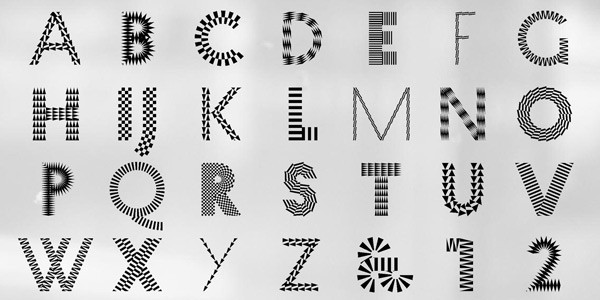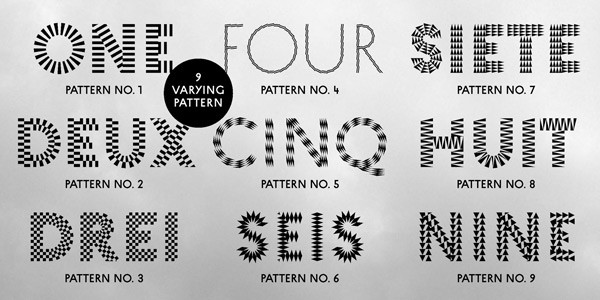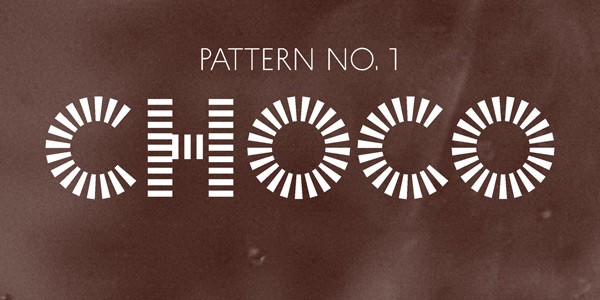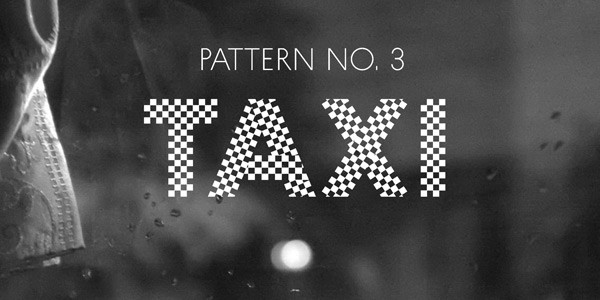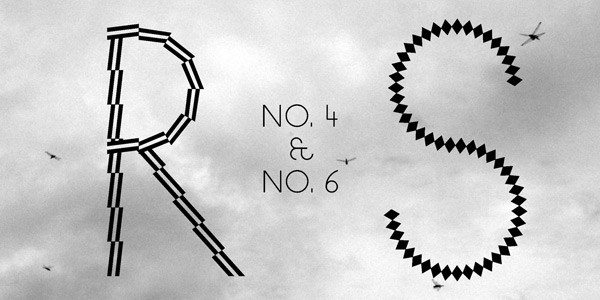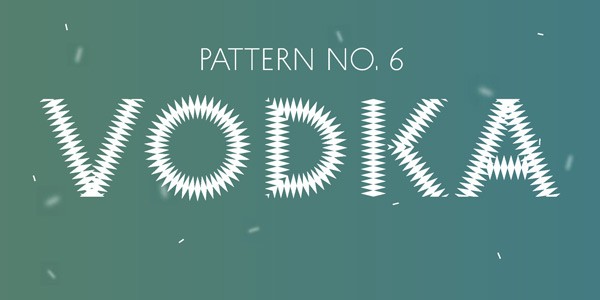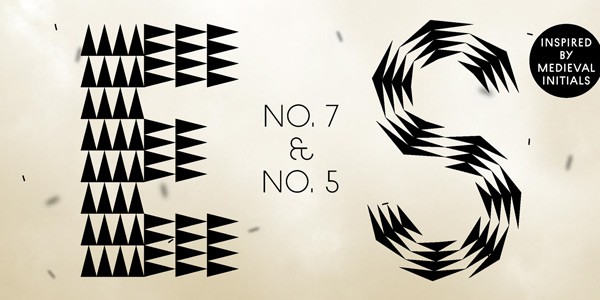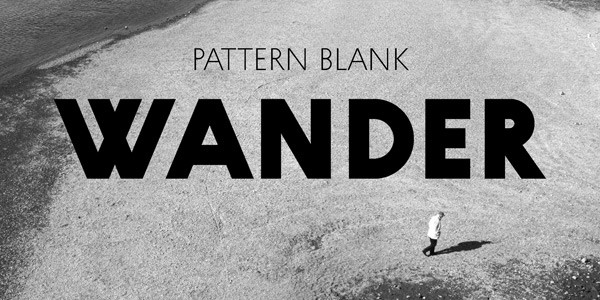
The Pattern fonts, an ornamental display type family designed in 2015 by Eike Dingler of foundry Mauve Type.
This is something for the graphic design and typography enthusiast among you. Eike Dingler is a German graphic and type designer. He has created this collection of pattern fonts in 2015. The full family consists of 9 varying pattern versions included in different weights and widths. In addition, the Pattern font family also includes a blank version (included as Regular and Bold weight). You can find more information below the first image.
This ornamental display type family draws inspiration from medieval initials. Type designer Eike Dingler wanted to transform this style into a state-of-the-art typeface. All letters are based on simple geometric forms, which results in a unique and modern appearance. You can use this family with all its different pattern styles for posters, packaging, labels, and much more. This set of pattern fonts works best in display sizes. The family supports Central, Eastern, and Western European languages. For additional information, just follow the link below.